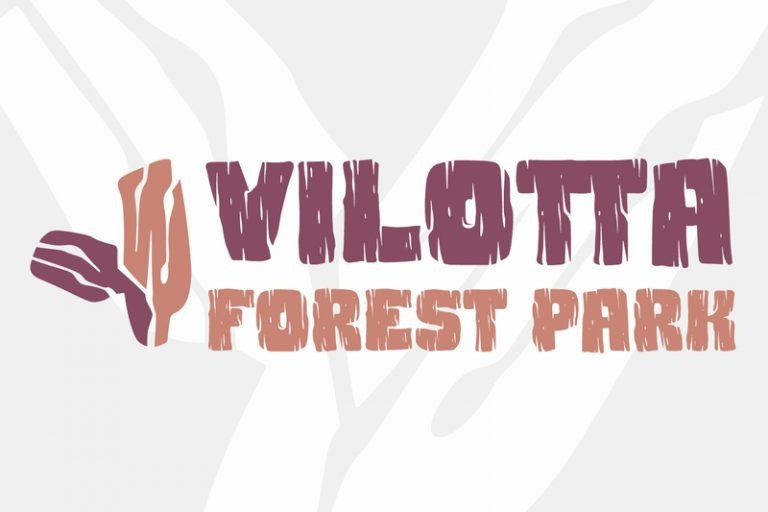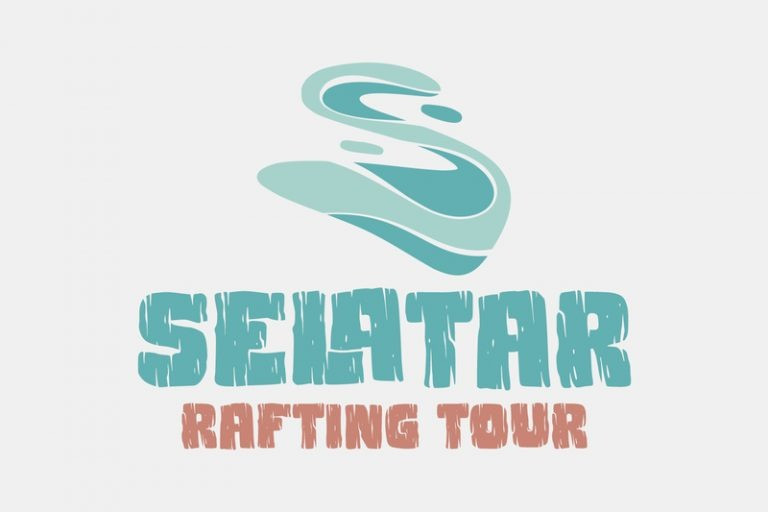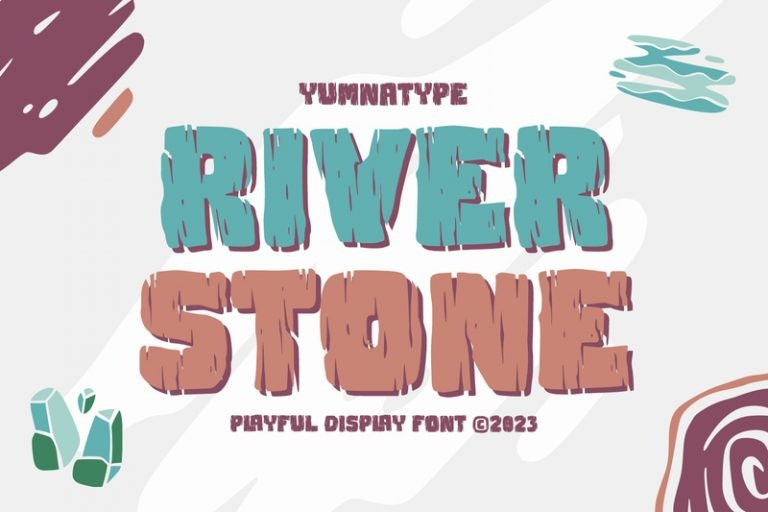
River Stone Font
River Stone Font is an uppercased display font in textured letter shapes with which it shows firm, eye-catchy impressions. The font’s textures can add dimensions to the letters’ displays and live up the design nuances. With the use of uppercases, this font is capable of protruding the desired messages and make the design displays more attractive.
Its unique shapes will affect the legibility rate of the font, therefore, you need to use this font for big text sizes for a better legibility reason. In addition, this font provides you a clipart as a bonus and you can make use of the available features here as well.
River Stone fits best for various design projects, such as brandings, posters, banners, headings, magazine covers, quotes, printed products, merchandise, social media, etc. Find out more ways to use this font by taking a look at the font preview.